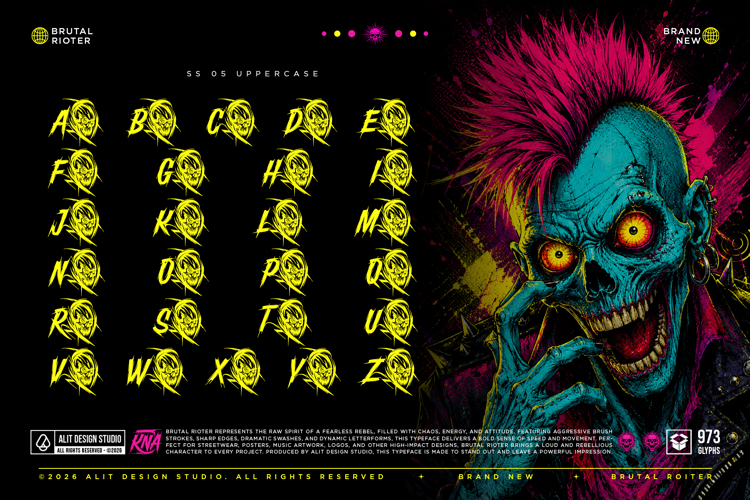
Brutal Rioter Font
Brutal Rioter Typeface
Brutal Rioter represents the raw spirit of a fearless rebel [Brutal Rioter 1.jpg]. Produced by Alit Design Studio, this aggressive brush typeface is saturated with chaos, energy, and an unapologetic attitude [Brutal Rioter 1.jpg]. Defined by its rapid brush strokes, razor-sharp edges, and dynamic letterforms, the font delivers a bold, visceral sense of speed and movement [Brutal Rioter 1.jpg]. It is meticulously crafted for designers who need their typography to scream rather than whisper, ensuring your project stands out and leaves a powerful, lasting impression.